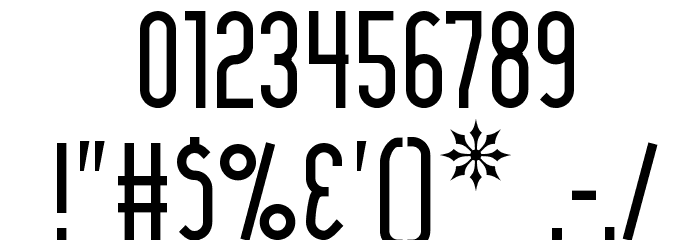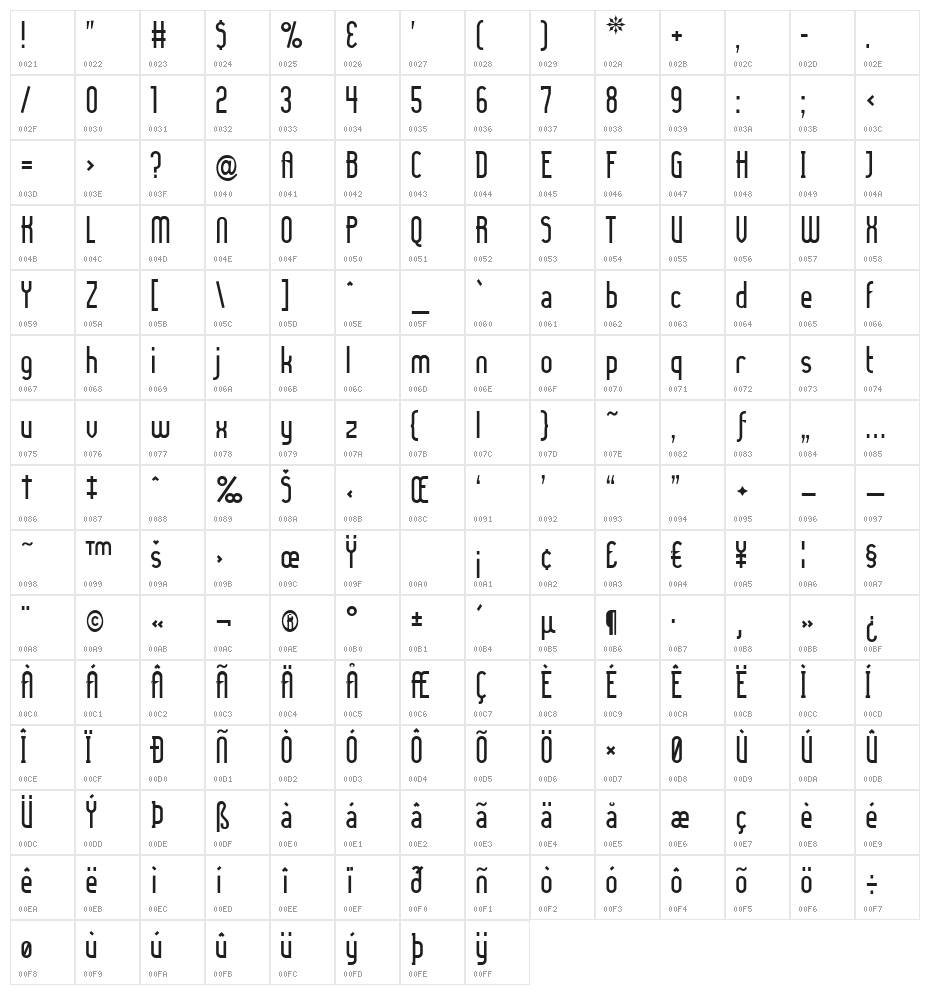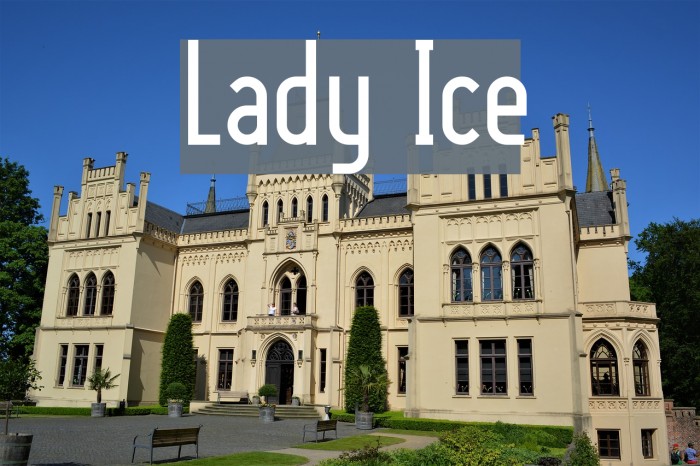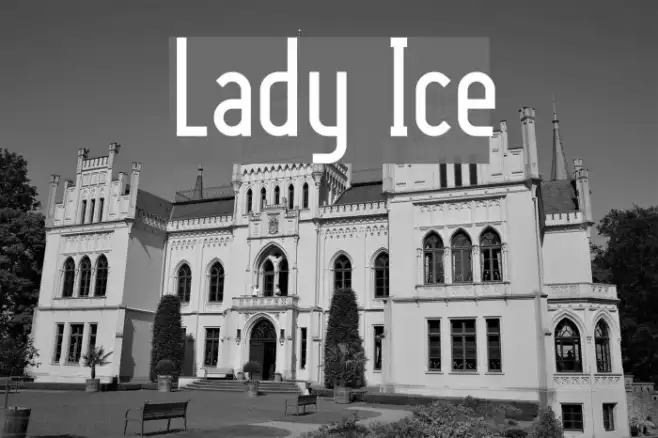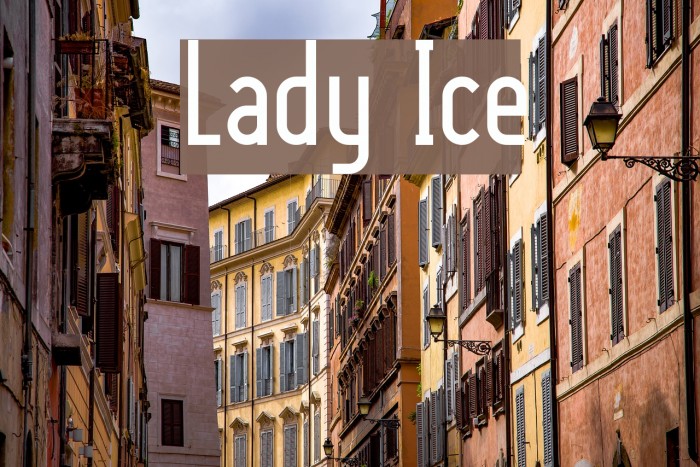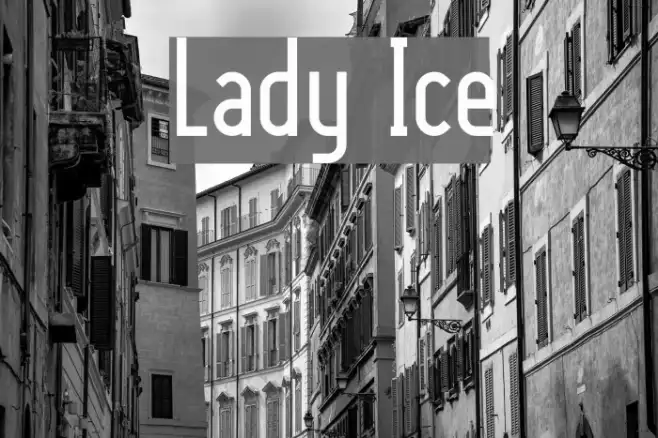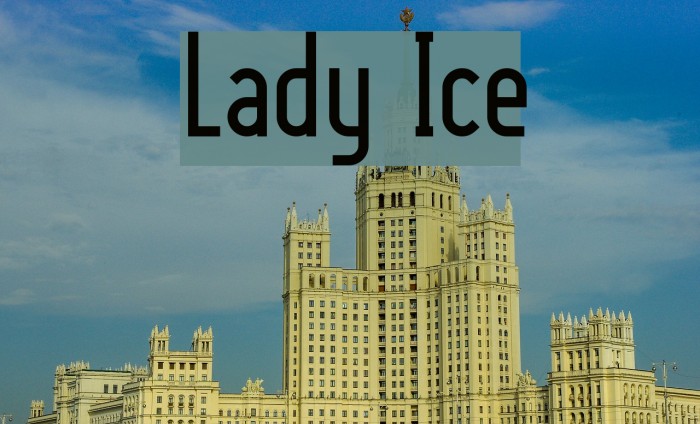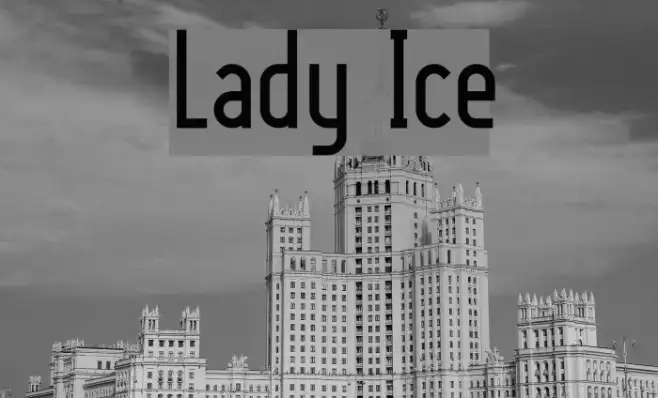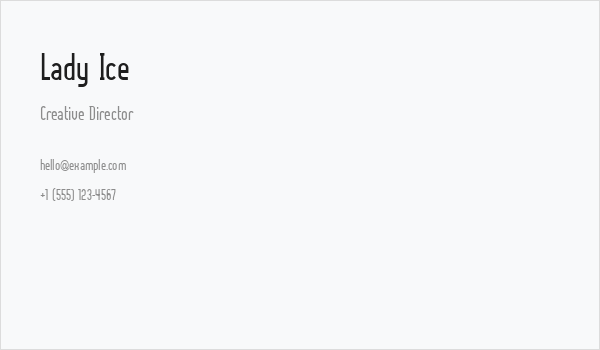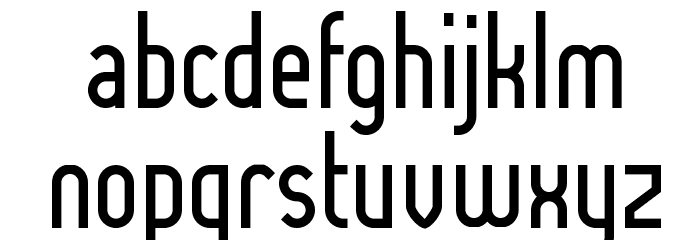
Lady Ice Font
Lady Ice Description
This font features a modern and sleek design with a geometric structure. The characters are tall and narrow, giving it a condensed appearance. The strokes are consistent in width, providing a uniform look across all letters and numbers. The uppercase letters have a distinctive style with rounded corners and straight lines, while the lowercase letters maintain a similar aesthetic with slightly softer curves. The numerals are clear and easy to read, matching the overall style of the alphabet. Special characters are included, maintaining the same design principles. This font is versatile and can be used in various design projects where a contemporary and clean look is desired.
| Proposed Projects | Ideal for branding, advertising, packaging, and modern web design projects. |